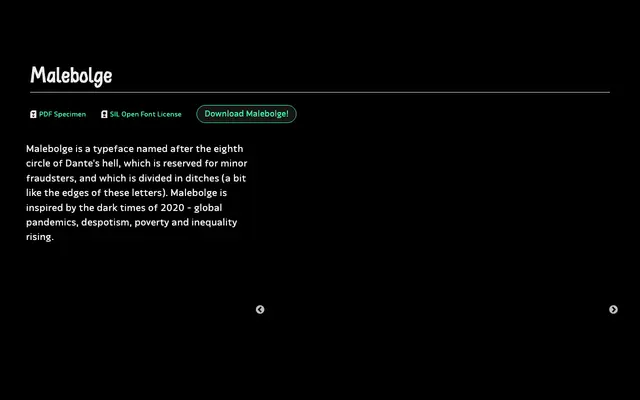
Malebolge
Tunera · Ariel Martín Pérez · 2020
A deliberately extravagant display typeface by Ariel Martín Pérez, named after the eighth circle of Dante's Inferno and shaped by the anxieties of 2020.
The letterforms draw their character from the ditches dividing Dante's Malebolge, with jagged or fractured edges running through the design. Released under the SIL Open Font License, this first public version offers a limited glyphset with further characters planned. The typeface is free to use, distribute and modify with credit to Tunera and the designer.
Described as extravagant with letter forms inspired by the ditches of Dante's eighth circle of hell, suggesting highly irregular, expressive forms that place it firmly in the display/experimental category rather than any conventional classification.